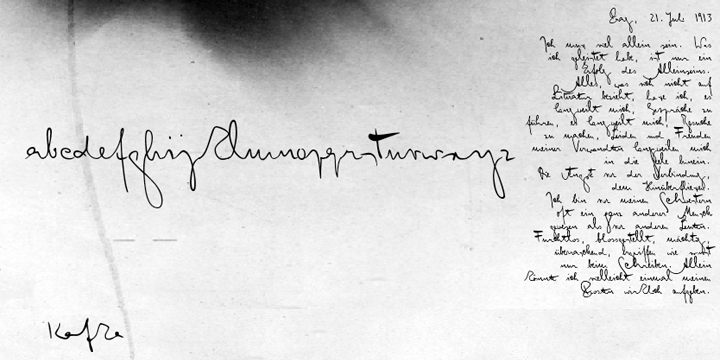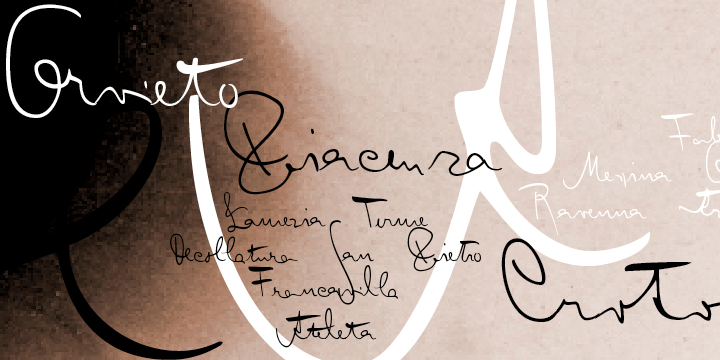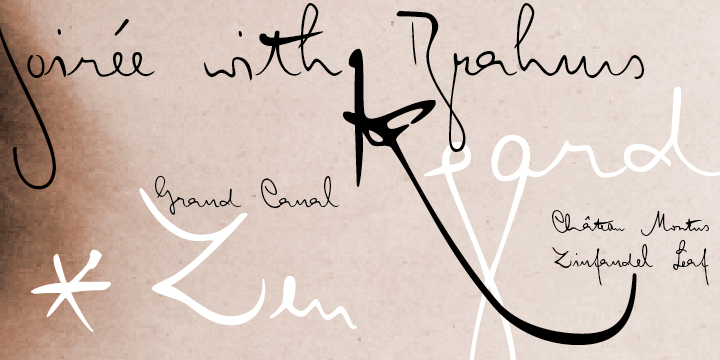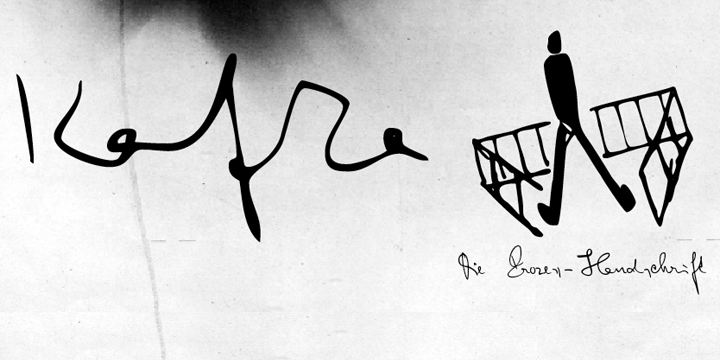
Kafka
Font Family by Julia Bausenhardt
Buy NowThis font is based on the handwriting of author Franz Kafka and captures his expressive handwriting style, using the manuscript of ?The Process? and his diaries as the primary reference. The font presents the elegance and nervousness with which he wrote his letters and book manuscripts.
To resemble naturalistic writing and remain as authentic and irregular as possible (without besoming impossible to read), a great number of extended ligatures was added. As an extra, several drawings from Kafka's diaries are included. A full international character set is featured.